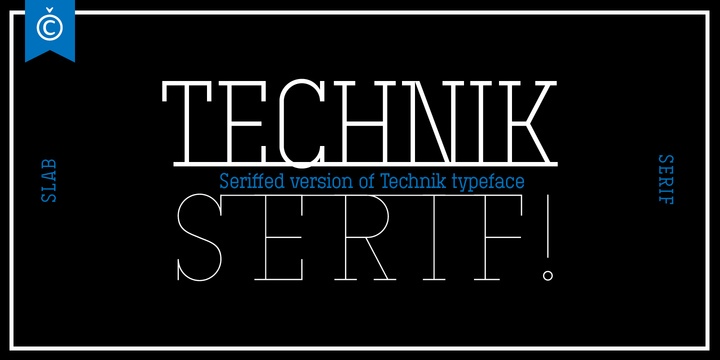
Technik Serif Font
Technik Serif Font is perfect for engineering documentation, technical publication headers, industrial equipment branding, scientific research reports, mechanical design presentations, manufacturing company logos, precision instrument packaging, and professional technical communications.
What makes Technik Serif Font exciting is its technical authority that combines classical serif tradition with modern engineering precision. The font features structured letterforms with mechanical serifs and systematic proportions that evoke technical drawings, industrial blueprints, and the rigorous standards of engineering excellence. Its distinctive technical styling and professional character communicate expertise, reliability, and methodical thinking, making every message feel backed by thorough analysis and engineered for optimal performance.
The Technik Serif Font family includes regular weight with uppercase and lowercase letters, numerals, punctuation marks, and comprehensive special characters. Premium versions often feature multiple weights and technical alternates that enhance the engineering, professional aesthetic perfect for industrial and scientific applications.
The engineering character of Technik Serif Font makes it particularly valuable for manufacturing companies, technical consulting firms, and precision instrument manufacturers. Its excellent readability ensures technical specifications and engineering documents remain clear while maintaining the distinctive industrial aesthetic that appeals to professionals seeking reliable technical solutions and engineering expertise.
Technical communicators and engineering professionals appreciate how Technik Serif Font effortlessly conveys professional competence and technical authority. The font's structured proportions and mechanical details create trustworthy technical materials that establish confidence with audiences requiring precise engineering solutions and methodical technical approaches.
The versatile precision of this typeface extends to aerospace companies, automotive engineering, and industrial automation where technical credibility drives business success. Technik Serif Font Free Download provides creative professionals with an essential tool for developing memorable, expertise-driven designs that resonate with audiences who value engineering precision, technical excellence, and the systematic approach of professional technical expertise in today's demanding industrial marketplace.